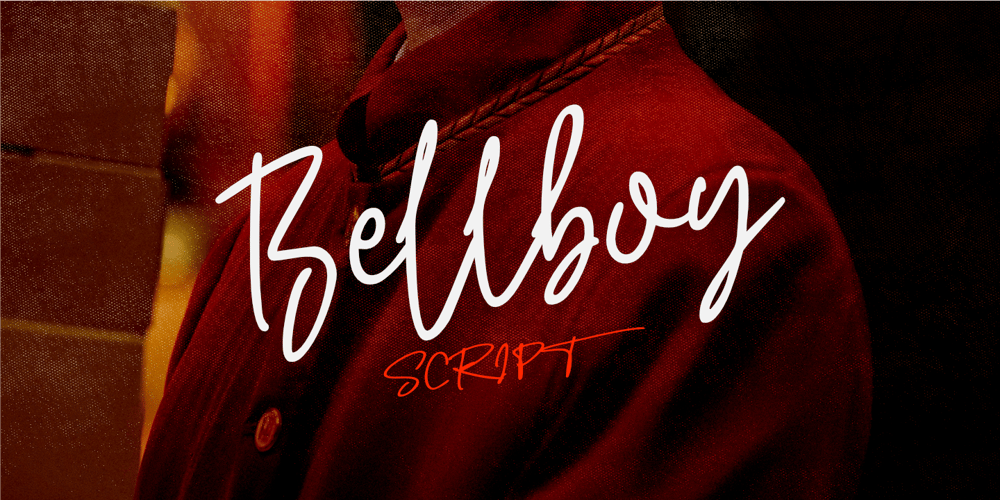
Bellboy Font Family was designed by Aldy Sidik, Nurul Hidayani and published by Olivetype. Bellboy contains 1 styles and family package options. Bellboy Script is a script font that has a classy & elegant feel that gives you so many ways to create beautiful typography in your design projects. It’s made up of smooth curves, which are also perfect for logos & wedding invitations. Use Bellboy Script to make your design stand out!So what’s included : Basic Latin Uppercase and Lowercase Numbers, symbols, and punctuations Ligatures Multilingual Support. PUA Encoded and fully accessible without additional design software Simple Installations works on PC & Mac Thank You and Happy Designing!